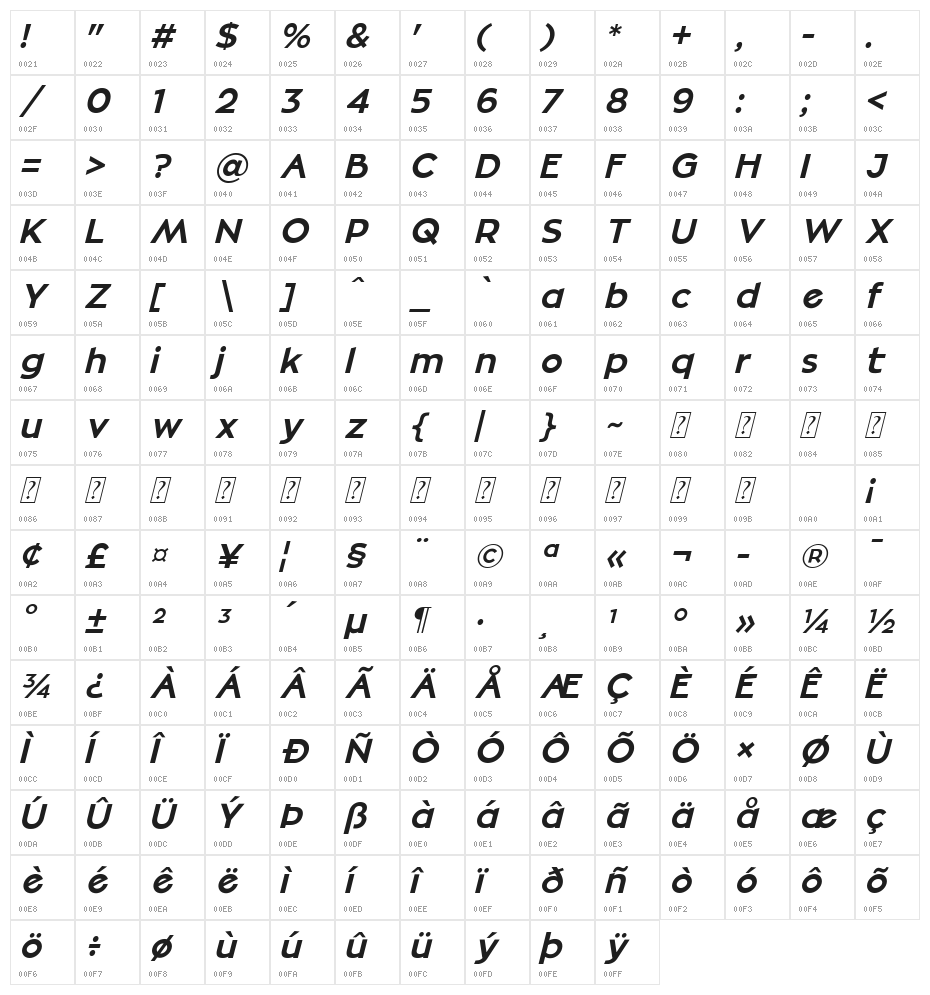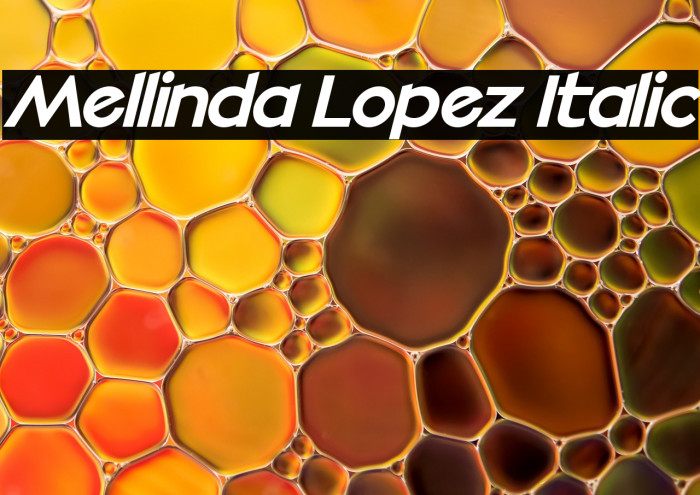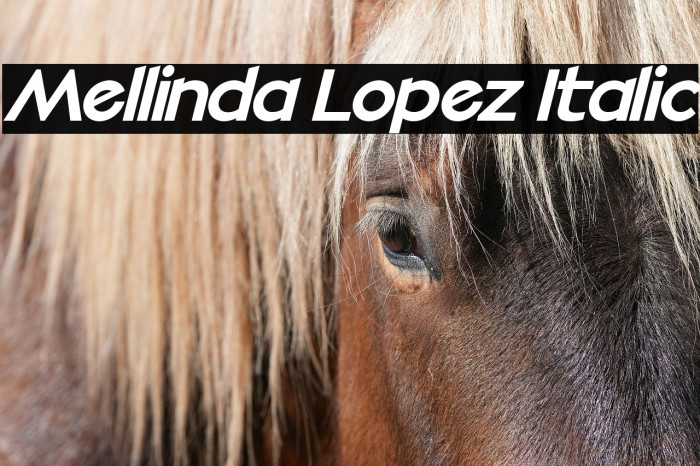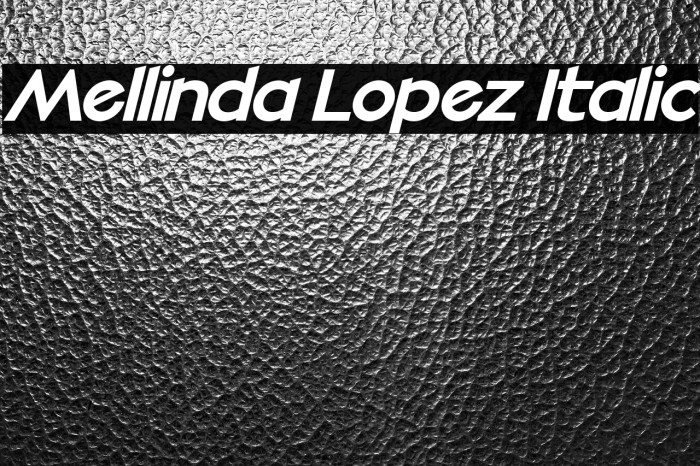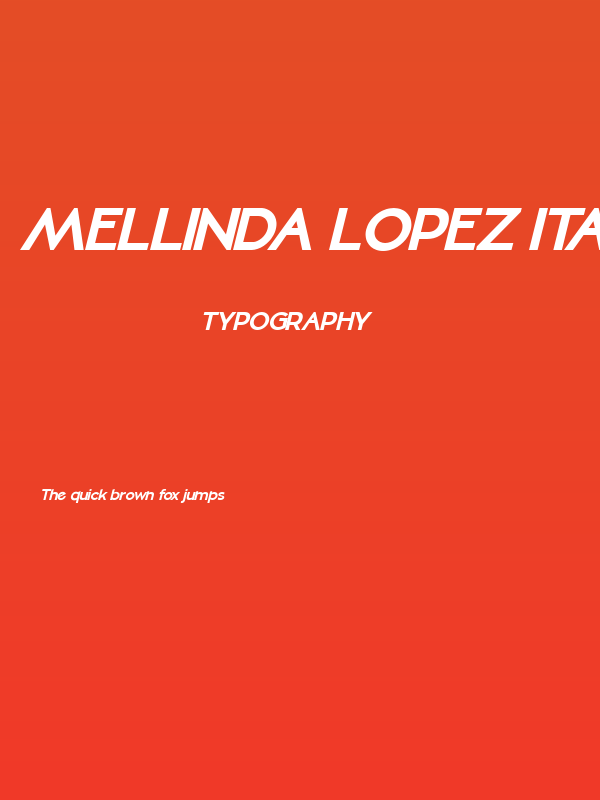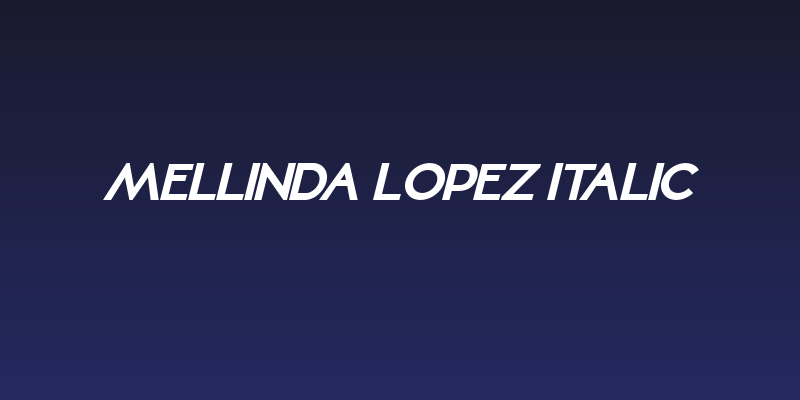
Mellinda Lopez Italic Font
Mellinda Lopez Italic Description
This font features a sleek and modern italic style with a smooth, flowing appearance. The characters are slightly slanted, giving a sense of motion and elegance. The strokes are consistent in thickness, providing a uniform look across all letters and numbers. The uppercase letters are bold and assertive, while the lowercase letters maintain a friendly and approachable feel. The numerals are clear and easy to read, making them suitable for various applications. Special characters are well-defined, adding versatility to the font's usage.
| Use Case | Headlines, Logos, Editorial design |
| Proposed Projects | Ideal for branding, advertising, and editorial design projects where a modern and elegant touch is desired. |